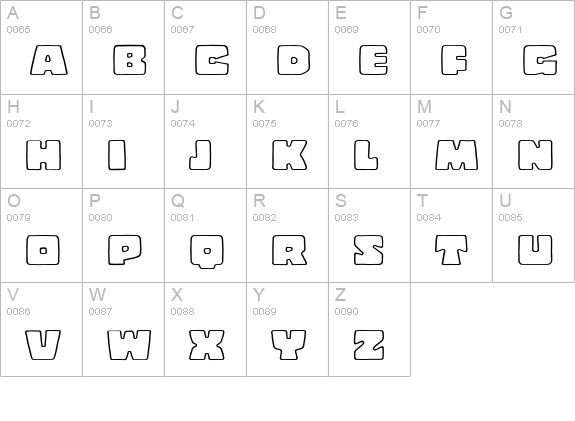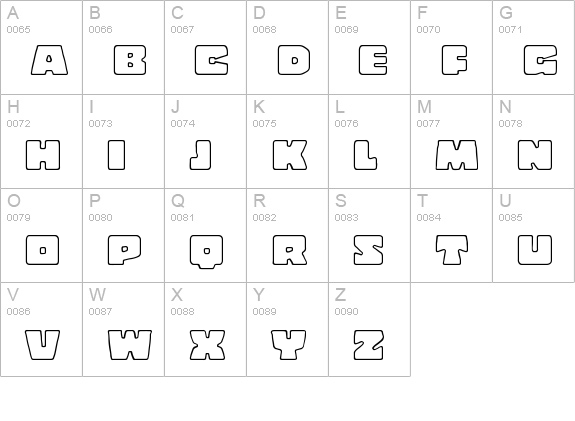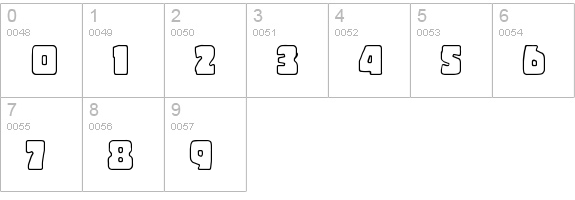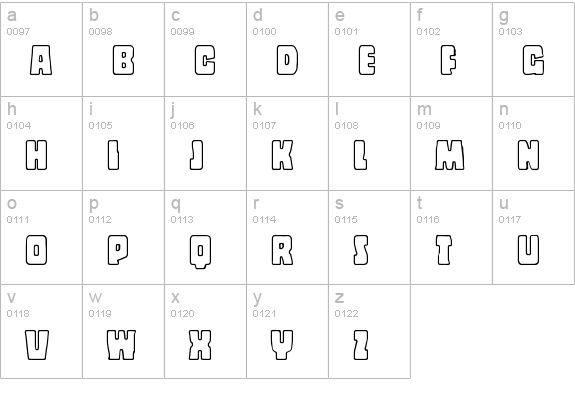
Copal Outline Font Details
Copal Outline font is a modern and stylish typeface that embodies a sleek and contemporary design aesthetic. Its clean lines and open forms make it perfect for various design projects, from branding to editorial design. The outline style adds a unique and eye-catching element to any text or headline. What makes Copal Outline font even more appealing is that it is available for free download at FontsMarket.com. This means that you can easily access this high-quality font for your personal or commercial projects without any cost. With its versatility and accessibility, Copal Outline font is a must-have addition to your font collection.